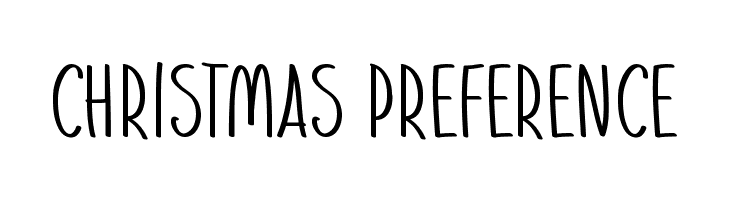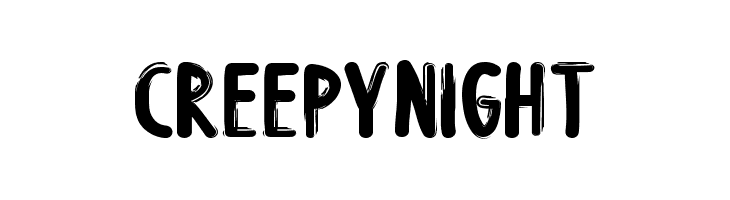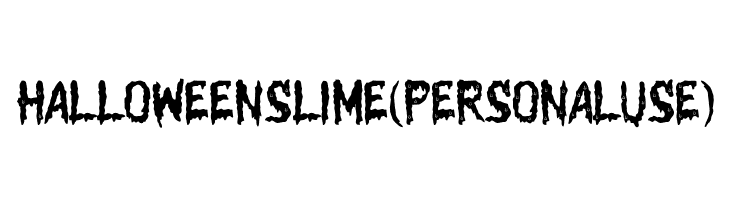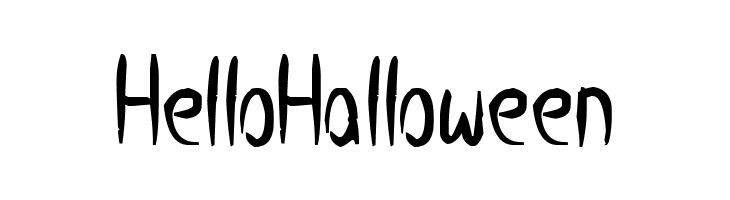
A whimsical, spooky font with jagged edges and playful curls, ideal for Halloween themes.
A playful, bone-themed decorative font perfect for Halloween designs.
A spooky, jagged font with a distressed, eerie appearance.
A playful, spooky font with a dripping slime effect, perfect for Halloween themes.
A festive decorative font featuring detailed holiday-themed symbols and icons.
A playful, hand-drawn font with tall, narrow letters and a whimsical style.
A playful, spooky font with jagged edges and a hand-drawn style, perfect for Halloween themes.
A bold, distressed font with a hand-painted, spooky aesthetic.
A playful, festive script font with flowing, interconnected letters and decorative flourishes.
A bold, playful font with skull and crossbones motifs integrated into each character.